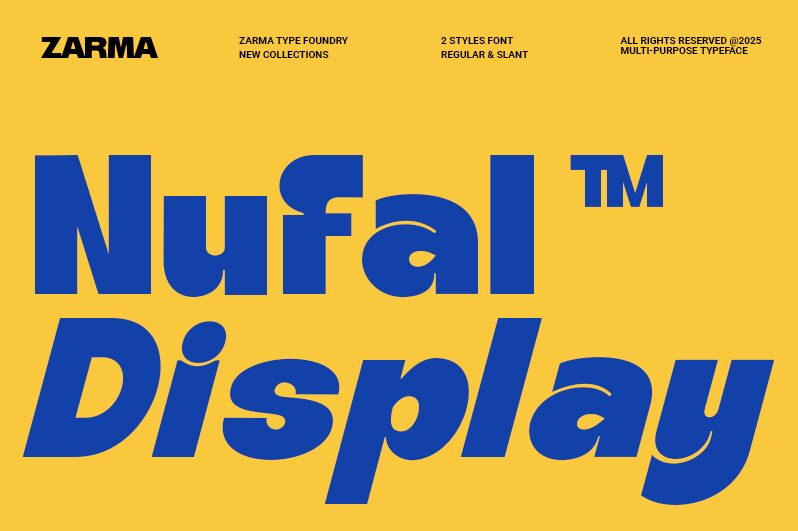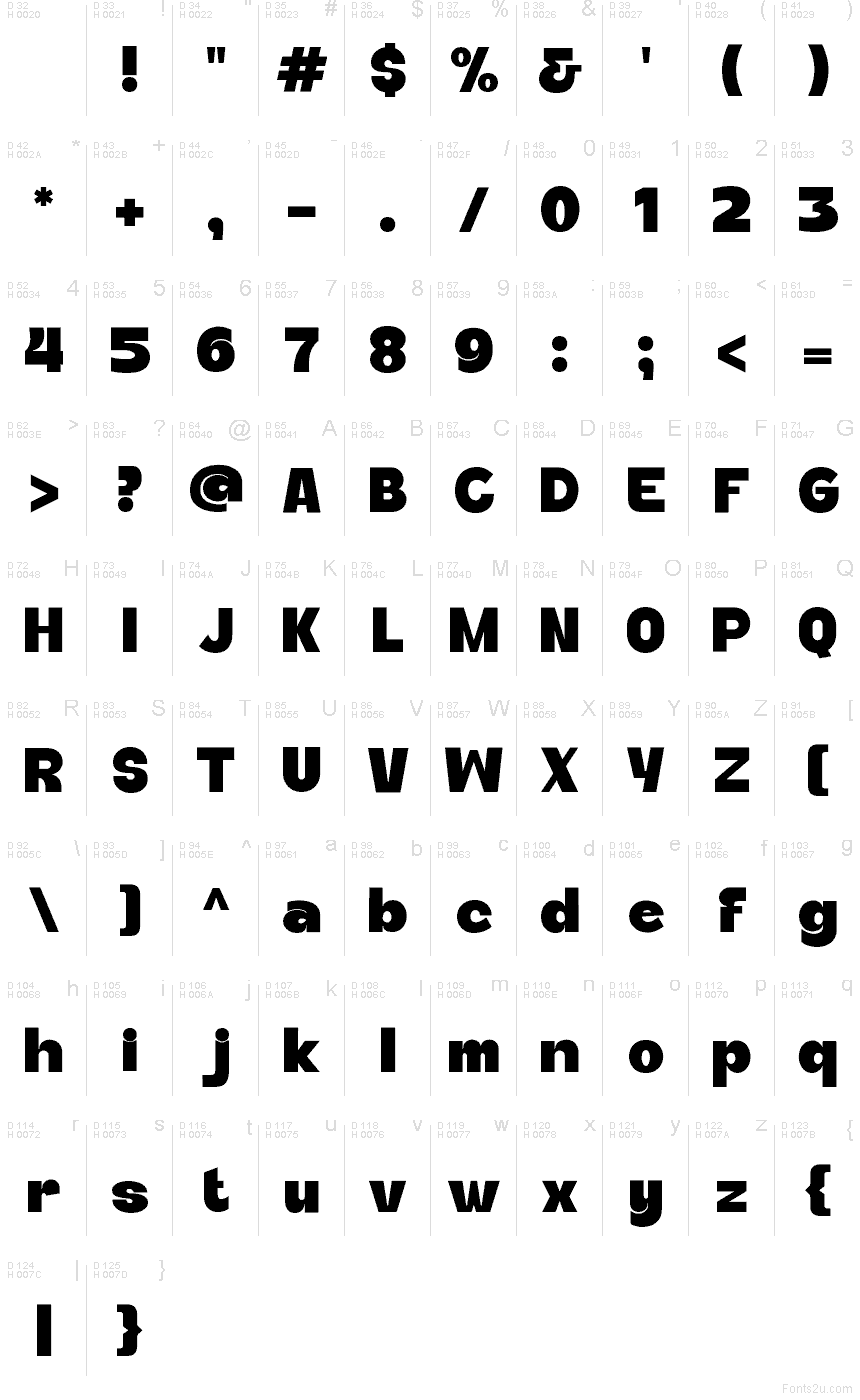
Nufal font by Zarma Type is a free modern sans serif font; this typeface hits with chunky, inky weight and smooth, squared-off curves that feel almost molded from rubber. The tight spacing and big, rounded shapes keep it loud but readable, so headlines land with confidence instead of chaos.
Using Nufal, you’ll get bold traction on posters, brand marks, app splash screens, YouTube thumbnails, streetwear graphics, event flyers, and punchy social ads. Set it large with a little extra breathing room, then pair it with a slim neutral sans for body copy so the contrast stays clean and intentional—this free font does the shouting while the text does the talking.